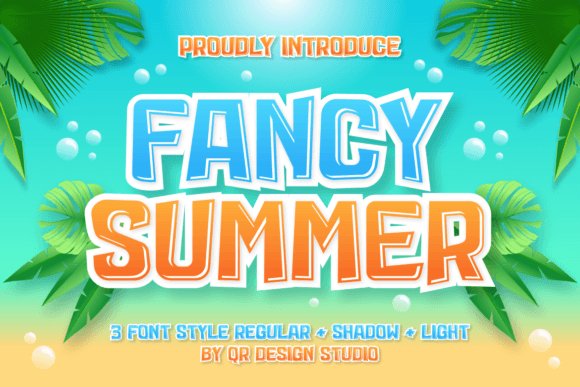
29 Vibrant Summer Logo Fonts for Tropical Beach Apparel 2026
Finding the right look for seasonal branding requires a mix of warmth and readability. These 29 Summer logo fonts help capture the heat and energy of the sunniest months. You can use these styles to create memorable identities for vacation rentals, swimwear shops, or ice cream parlors.
Selecting the perfect typeface sets the mood for your entire visual presence. You might pick something playful like a hand-drawn script or a clean, modern sans-serif. These options provide plenty of variety. Each choice ensures your message stays clear while feeling relaxed and inviting.
1. Stay Lucky Display Font
Stay Lucky Display Font
Stay Lucky Display Font – Stay Lucky brings a heavy dose of nostalgia to any creative project with its thick, wavy lines and 70s-inspired charm. It captures a specific bubble-letter energy that feels both cheerful and commanding on a digital canvas. This typeface works remarkably well for bold t-shirt graphics or bright social media headers that need a retro pop.
Finding the right Summer logo fonts requires a balance of personality and legibility, which this set provides through its fearless, maximalist design. It supports various file formats for digital stickers and Procreate use, ensuring you have the tools needed for playful branding. The aesthetic leans into a fun, candy-store style that keeps viewers engaged and curious.
2. Always Chunky Display Font
Always Chunky Display Font
Always Chunky Display Font – This typeface leans heavily into a friendly, rounded aesthetic that makes any text feel approachable and soft. It serves as a great choice for children’s birthday themes or toy packaging where a lighthearted mood is required. The letterforms remain easy to read despite their heavy weight, ensuring your message stays clear across all marketing materials.
Creative professionals often reach for this style when they need to balance boho trends with a vintage edge. The thick proportions provide a solid base for outdoor event posters or trendy apparel prints that demand attention. It works well across different media, from physical merchandise to colorful YouTube thumbnails that need a bit of extra character.
3. Summer Tropics Script Font
Summer Tropics Script Font
Summer Tropics Script Font – Summer Tropics offers a hand-drawn feel that bridges the gap between casual handwriting and professional branding. Its bold strokes provide a sense of authenticity that thinner scripts often lack, making it readable even from a distance. Use it for greeting cards or product labels that require a personal, warm touch to reach your audience.
The fluid motion within the characters suggests a relaxed, sun-soaked atmosphere without relying on tired visual tropes. It anchors a design with its organic flow and weighted lines, giving brand identities a grounded yet airy presence. This script remains legible across various backgrounds, proving its worth for any project needing a human element.
4. Morning Vibes Font
Morning Vibes Font
Morning Vibes Font – Morning Vibes brings a thick, hand-drawn energy to any project requiring a personal touch. Its heavy strokes and rustic feel work well for organic food packaging or adventurous apparel lines. Incorporating these Summer logo fonts help your brand feel approachable while maintaining a strong visual presence on store shelves.
The legibility remains high despite the bold weight, making it a reliable choice for social media graphics and posters. It balances casual flair with professional weight, providing a solid foundation for bright identity systems. This typeface captures a cheerful spirit that pairs well with sunny color palettes.
5. Summer Party Font
Summer Party Font
Summer Party Font – Summer Party offers a lighthearted, breezy aesthetic through its fluid letterforms and casual cursive style. This font mimics actual handwriting, giving digital designs a warm, relatable quality. It performs well in casual settings such as invitations, beach club menus, or playful stationery sets.
The thin lines and bouncy baseline create a sense of movement and joy. By using this script, designers can evoke memories of relaxed afternoons and social gatherings without looking too formal. It acts as an effective tool for brands that want to emphasize friendliness and spontaneity in their visual communication.
6. Summer Times Font
Summer Times Font
Summer Times Font – Summer Times presents a sturdy, confident display style that anchors a layout with ease. Its wide characters and clean edges make it a standout choice for large-scale applications like billboards or window decals. The typeface manages to feel both nostalgic and modern, fitting well within seasonal marketing campaigns.
Refreshing your visual identity with these seasonal options makes your brand feel current and relatable. These typefaces provide the right balance of personality and professional polish. Choosing one of these styles helps your projects stand out during the peak vacation season.
Stick to typefaces that reflect the casual, breezy nature of the warmer months. Your choice of typography often dictates how customers perceive your brand’s voice. Pick a style that speaks to your audience and keep your 2026 designs looking sharp and bright.